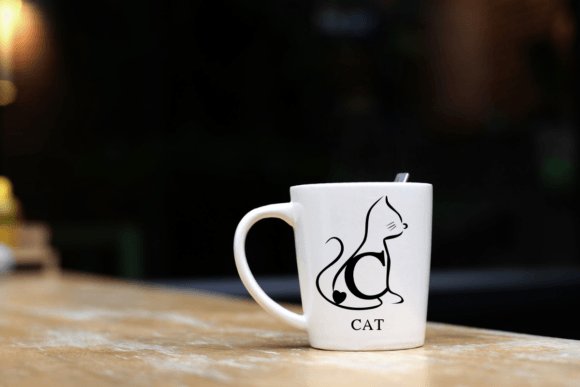
Dog and Cat Font
Dog and Cat is a decorative font that playfully incorporates dog and cat elements into its letterforms. Each character often features whimsical details such as paw prints, tails, or ears, adding a fun, pet-themed flair to the design. The font may have a hand-drawn or cartoonish style, making it ideal for projects related to pets, animal lovers, or children.
Dog and Cat Font is perfect for creating logos, invitations, pet-related products, or any design that needs a lighthearted and playful touch. Its charming details make it stand out as both creative and fun.